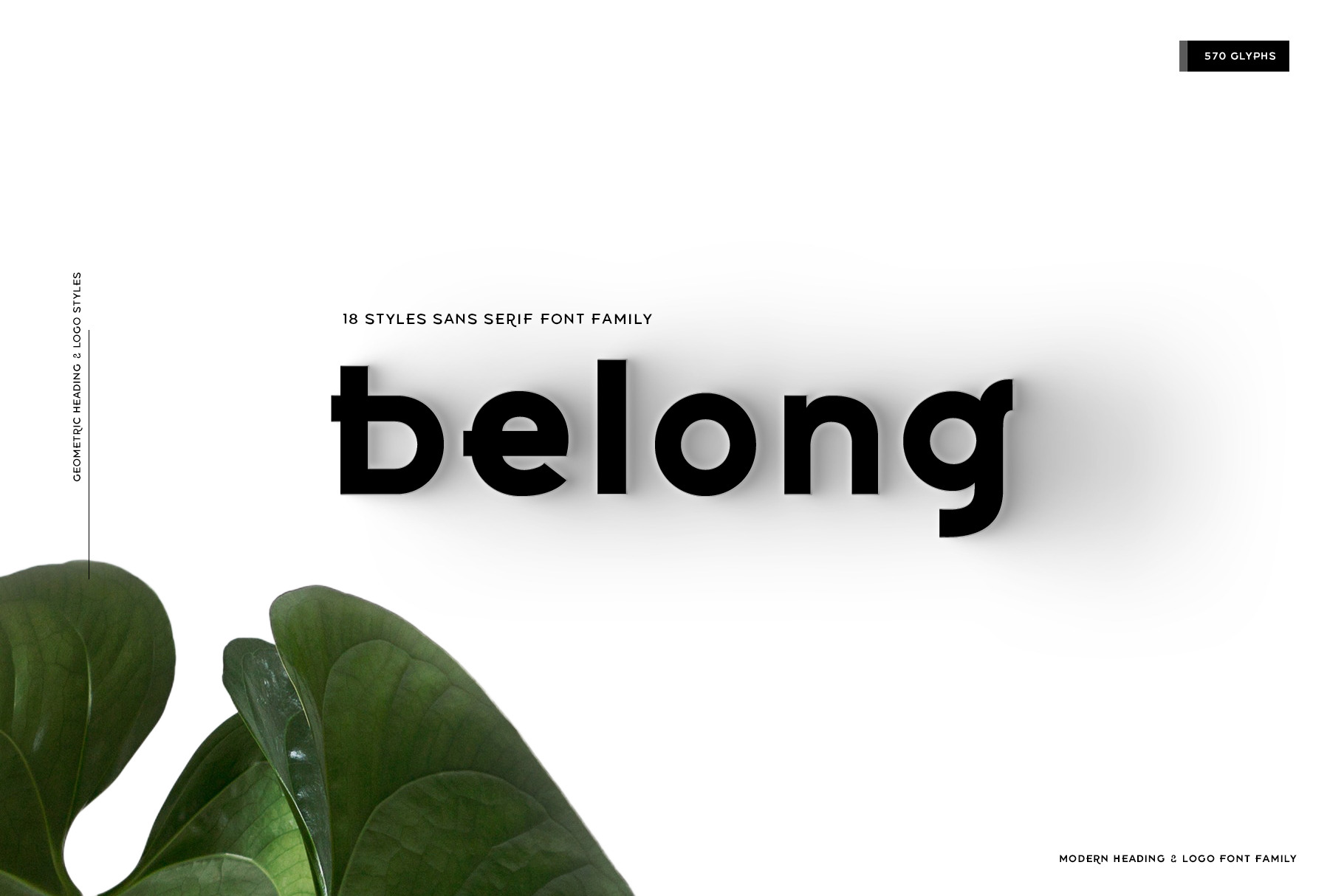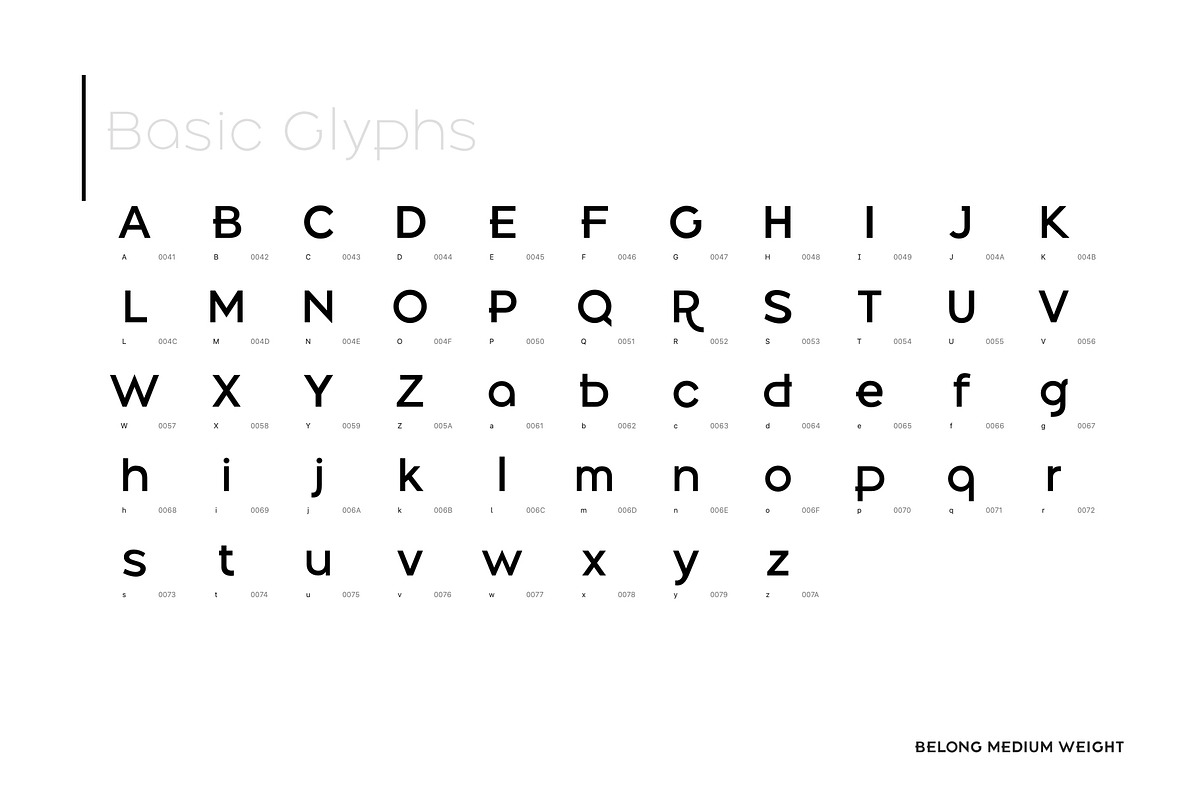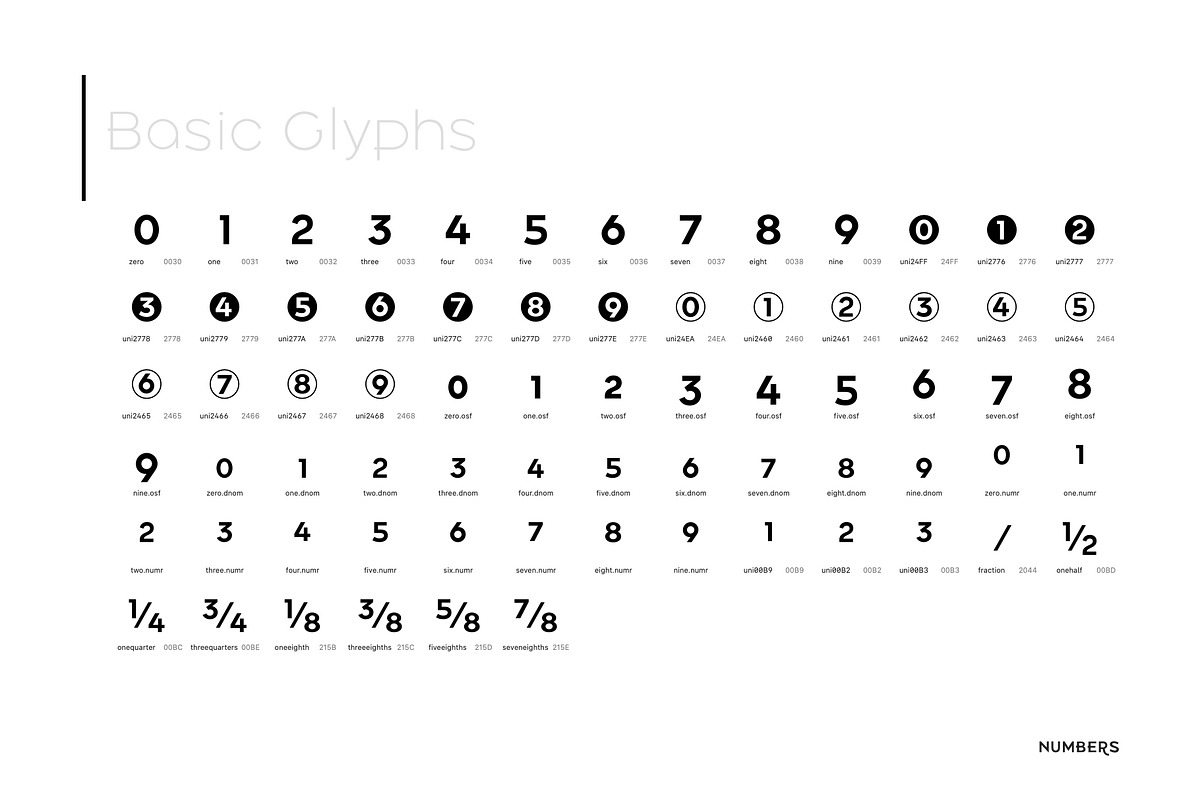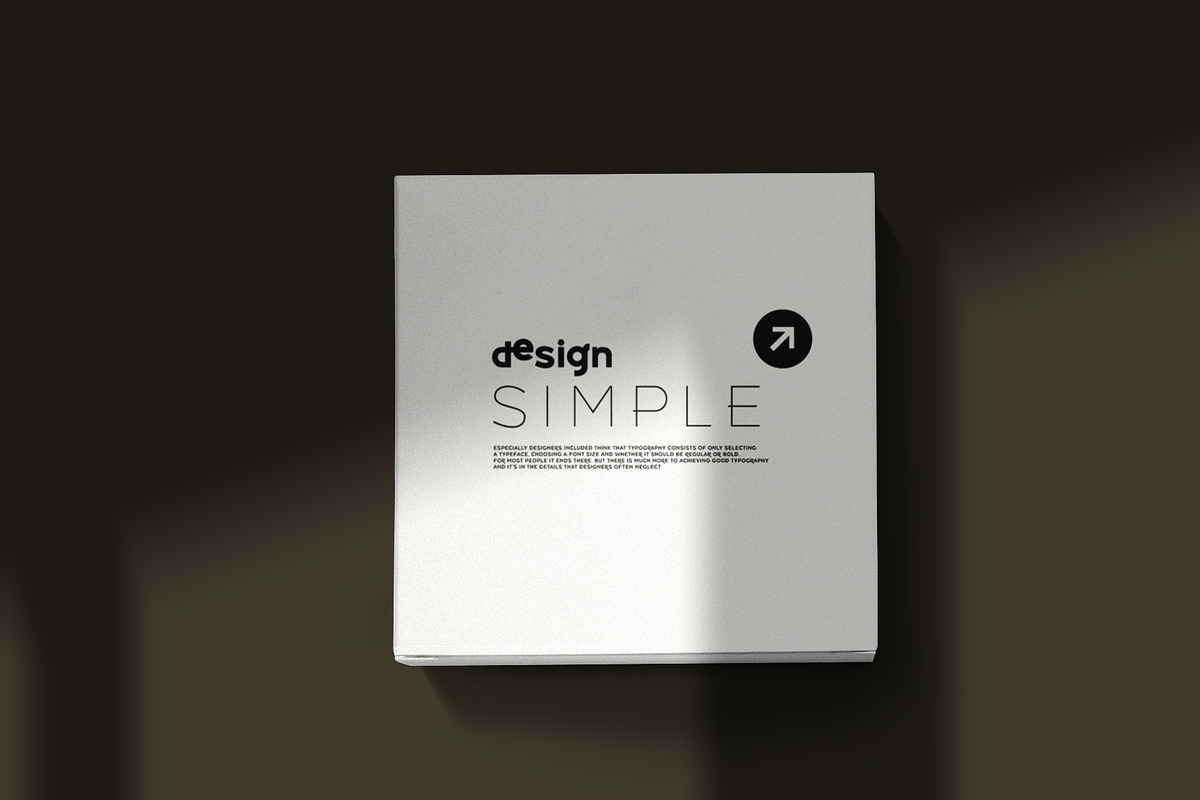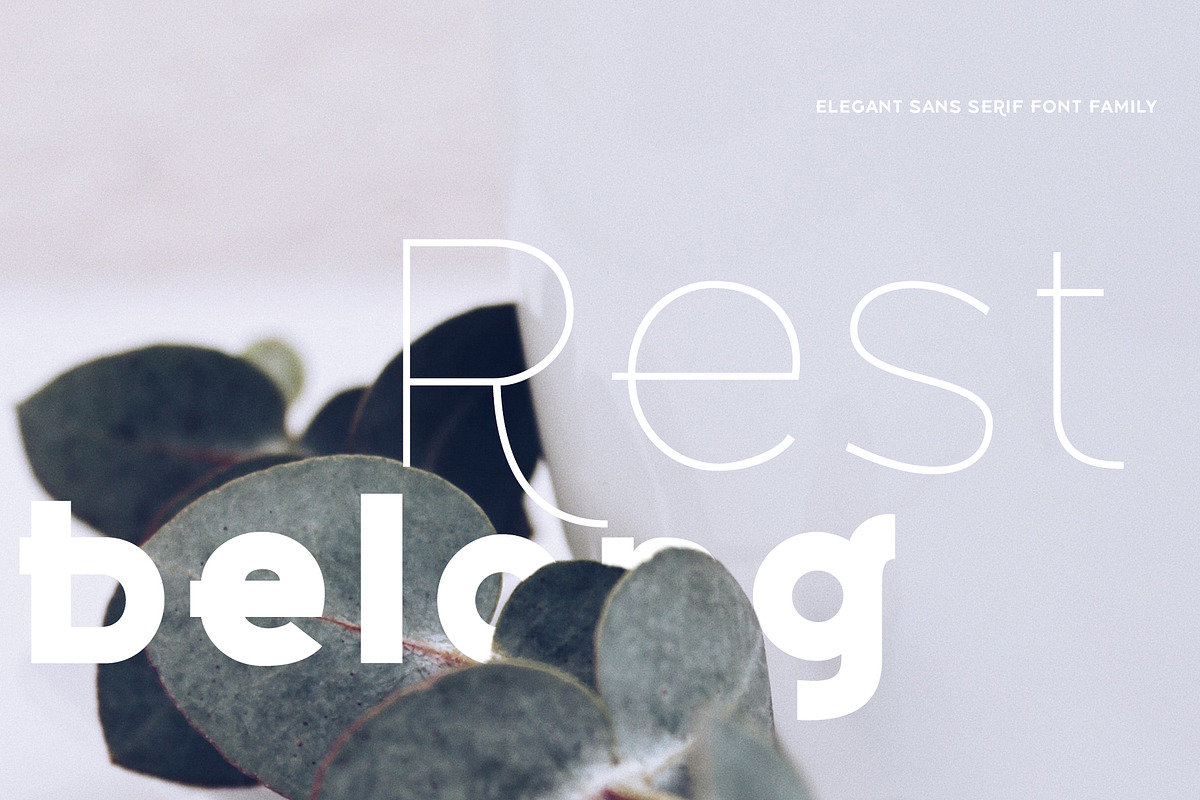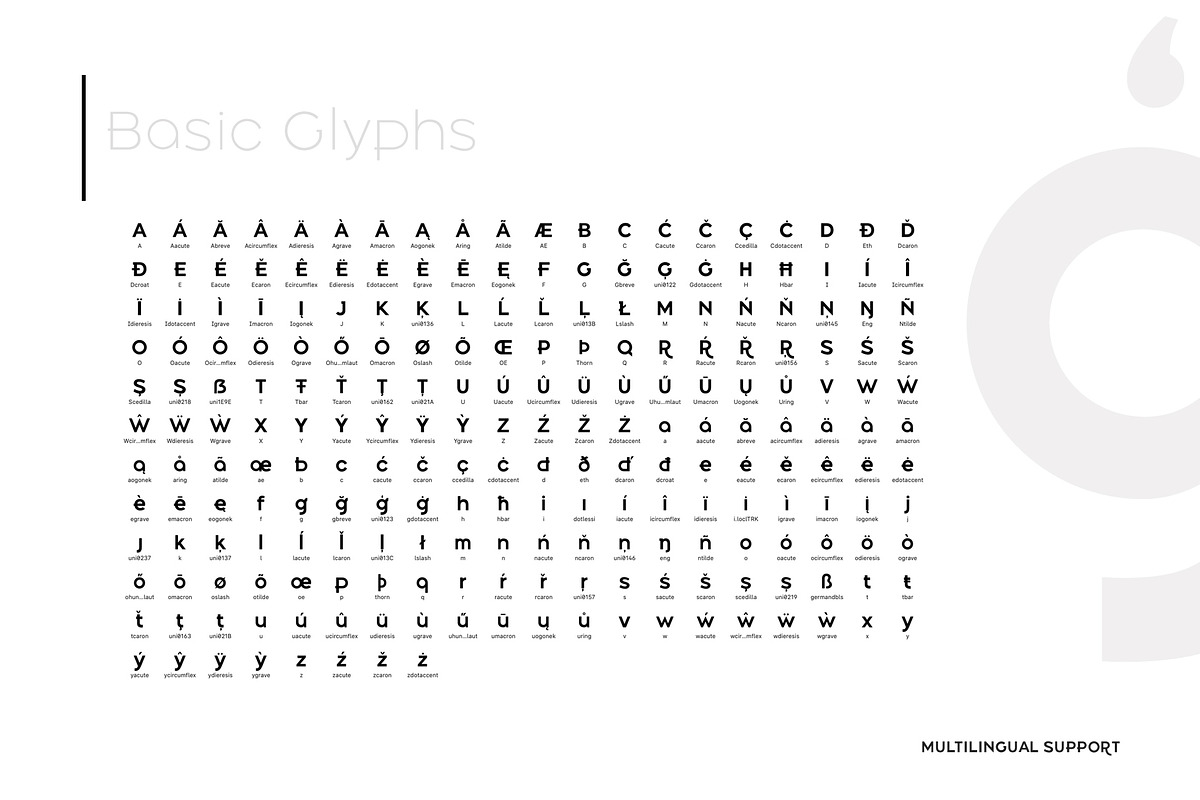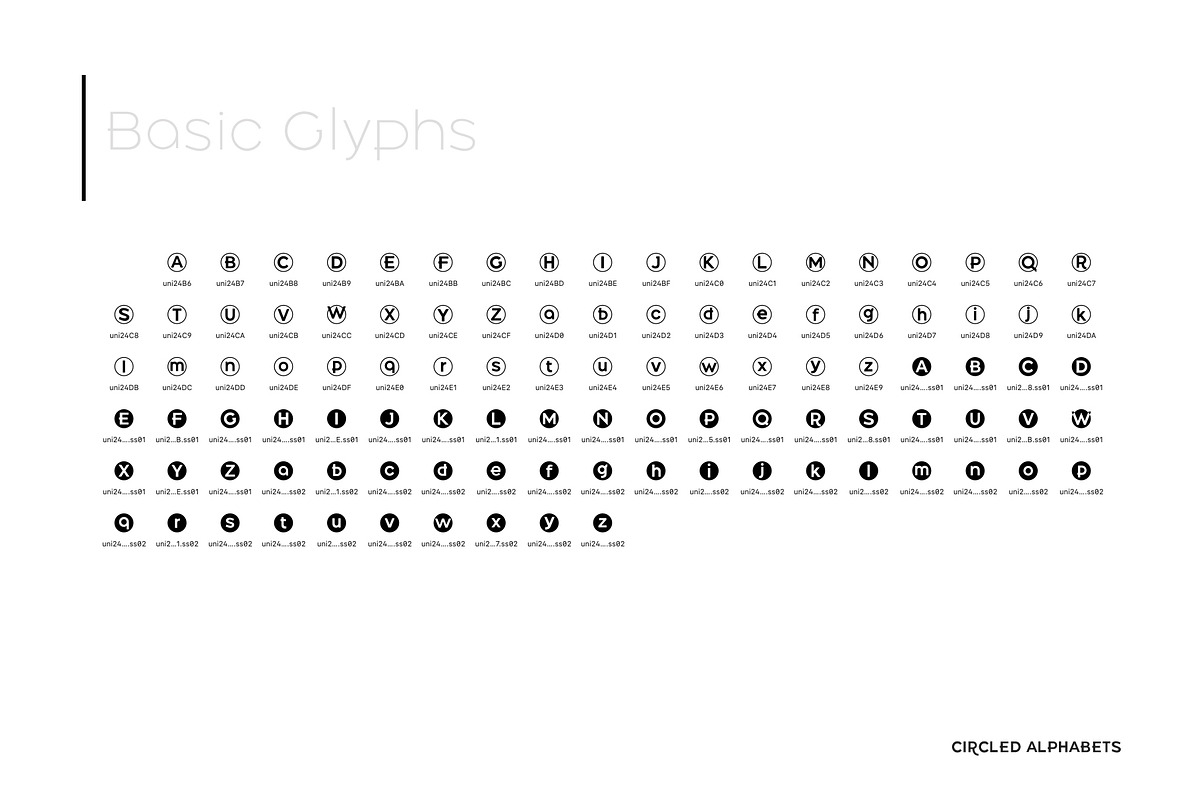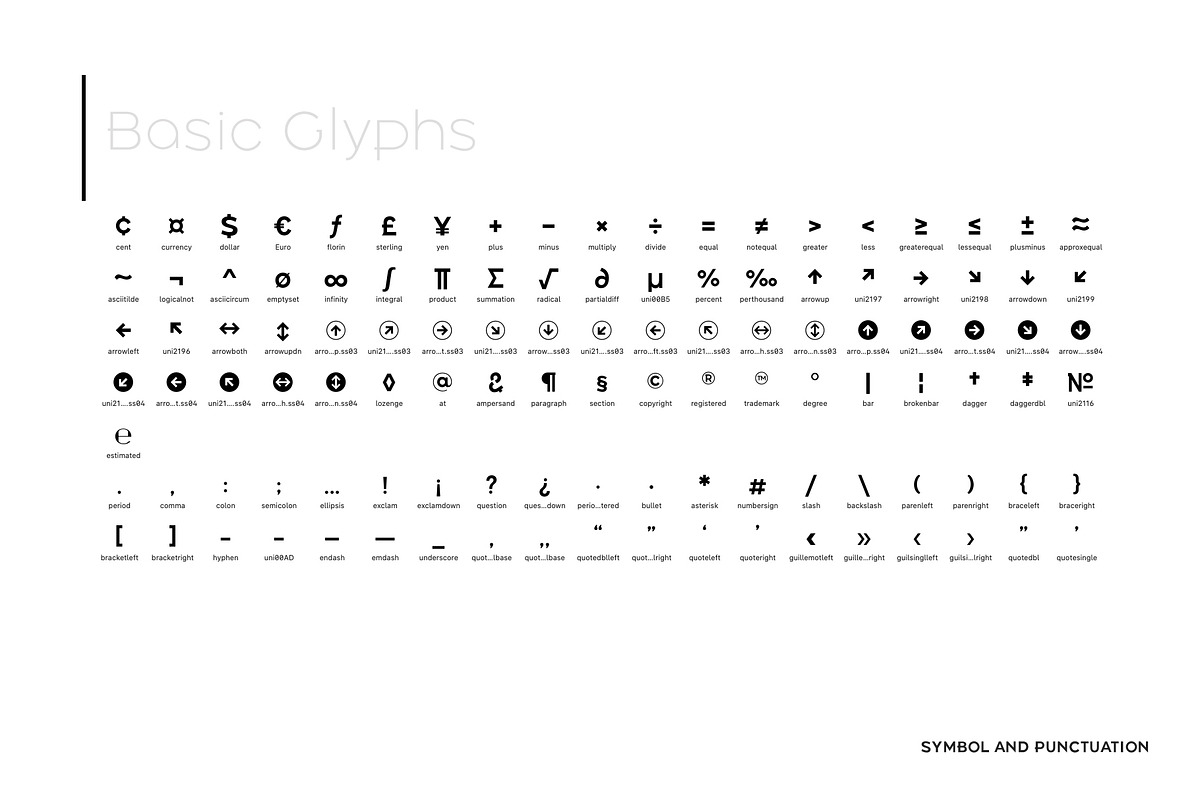
Belong Logo and Heading Font Family
The Features of Belong Logo and Heading Font Family are that it have both readability and uniqueness.
It touches to achieve uniqueness while conforming to the structure of the Sans Serif system.
These harmonious intersections of the acclimations and deviations were applied to these fonts.
As a result, these fonts can be used beautifully in any body and text area, not just the logo or title.
In addition, circled glyphs will show originality in various emphasis and bullet areas.
Convenience and creativity for professional designers will be shown up in various fields such as the editorial or APP design business.
OpenType Features
- Kerning
- Ligatures (La, Le, Lo, ce, da, de, do, fi, fl, ta, te, th, to, tt, THE)
- Additional Numbers
- Stylistic Sets
- Fraction and More.
The Belong Sans Serif Font Family supports the following languages: